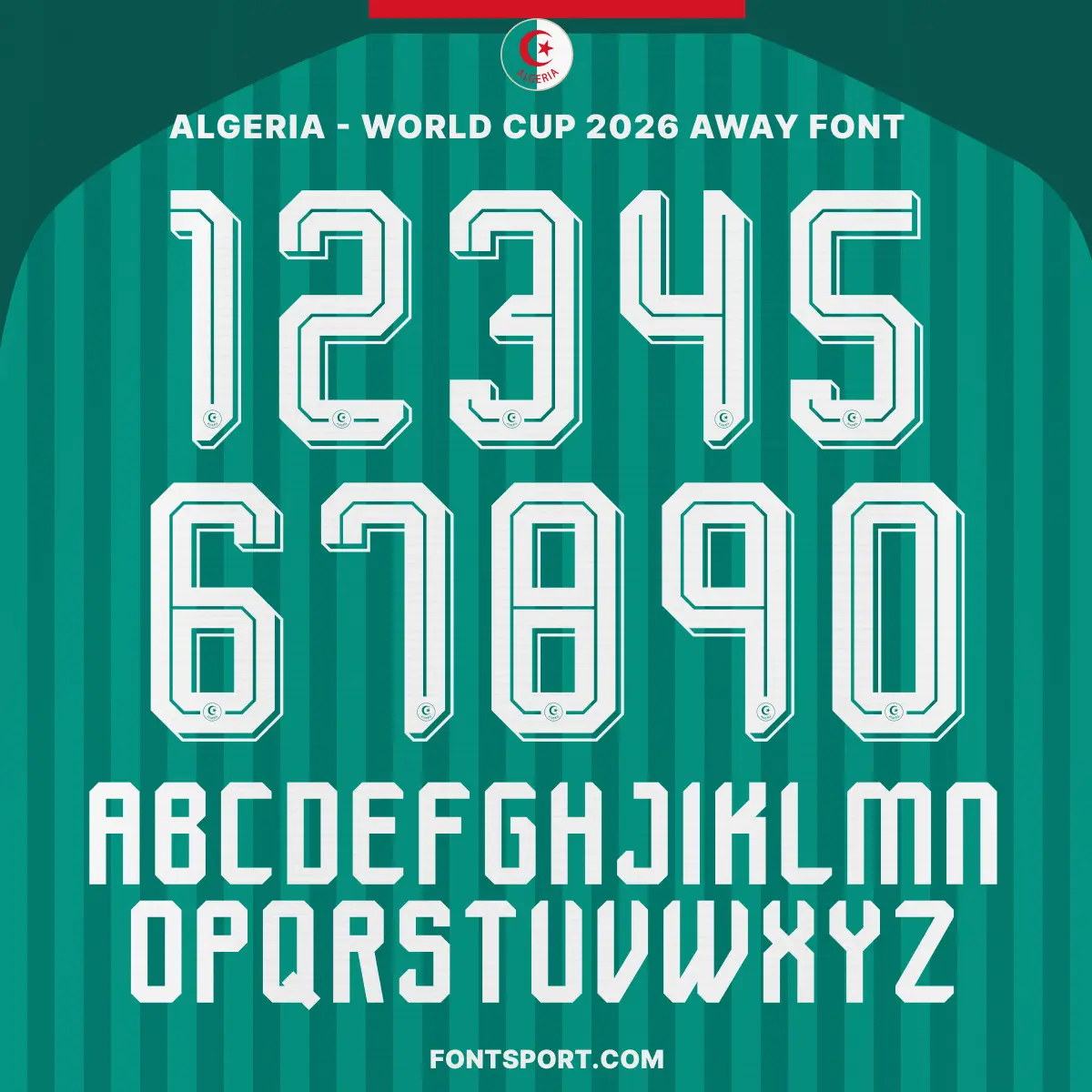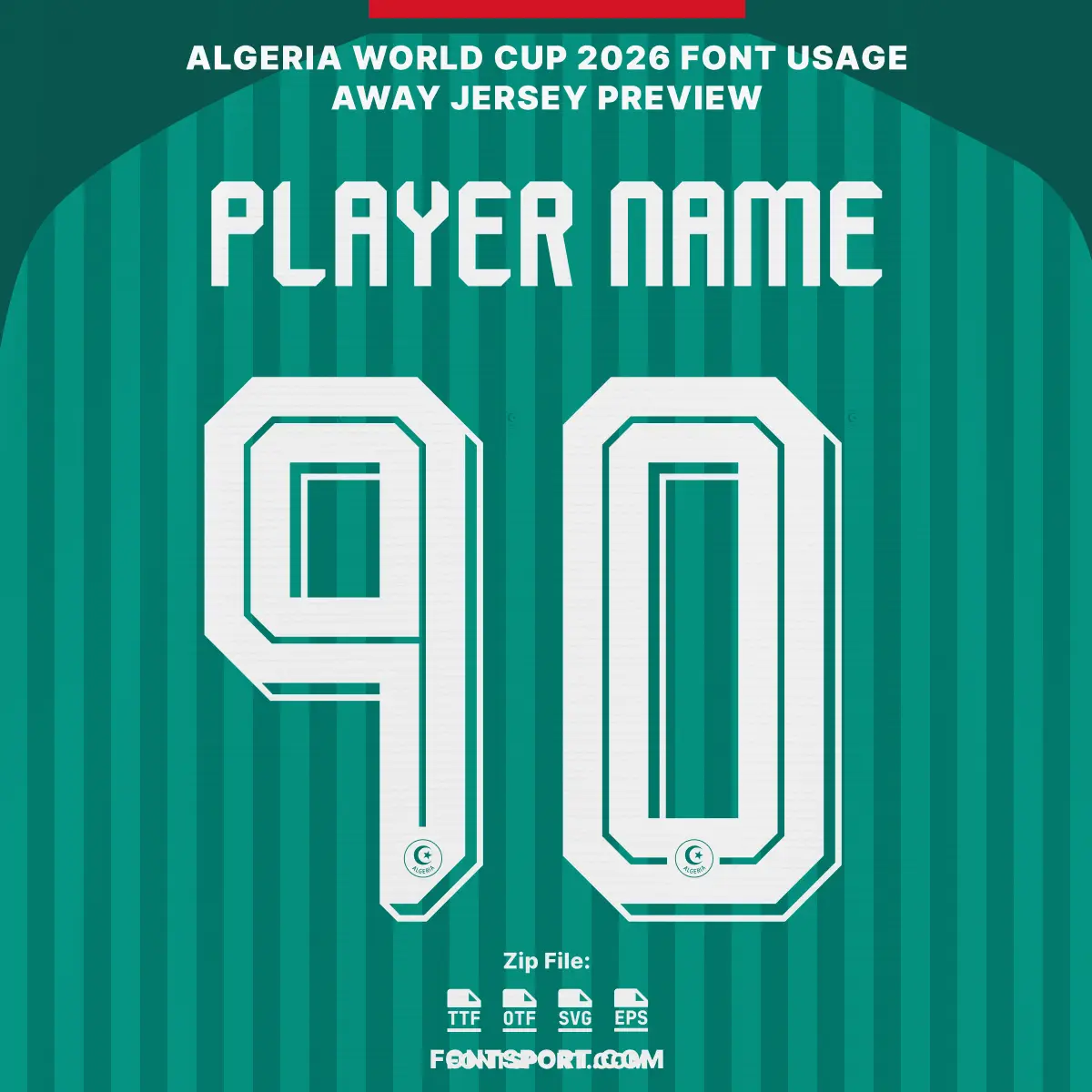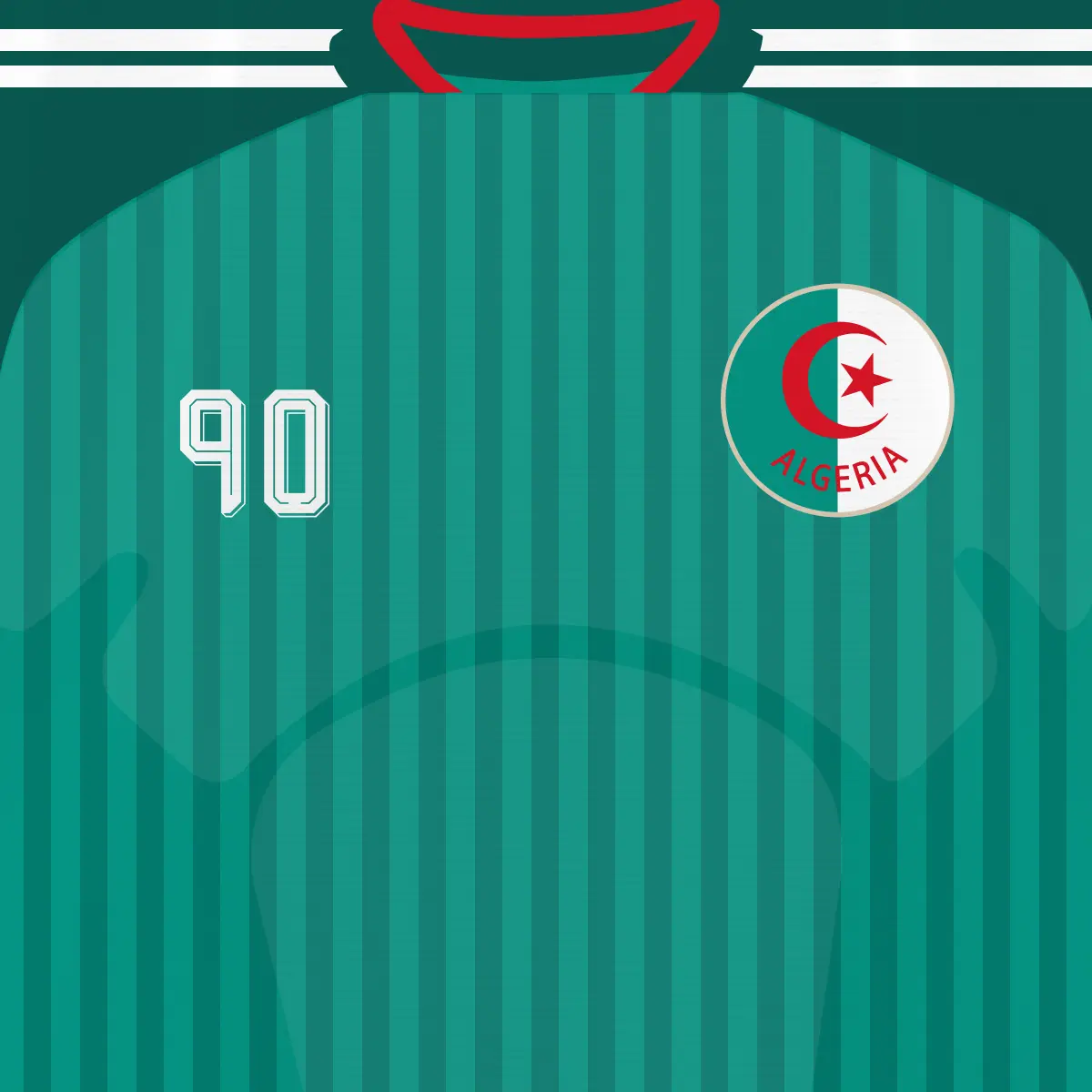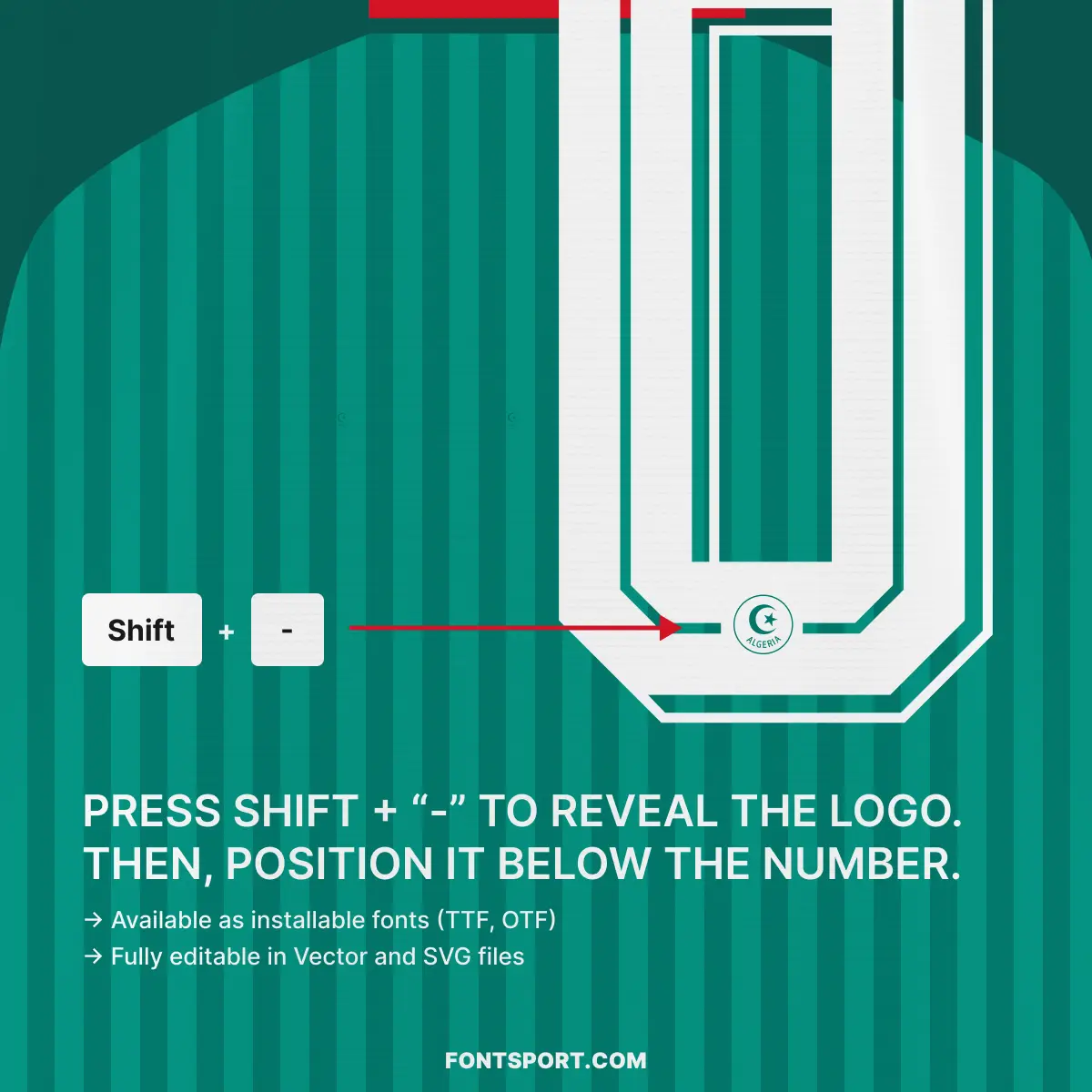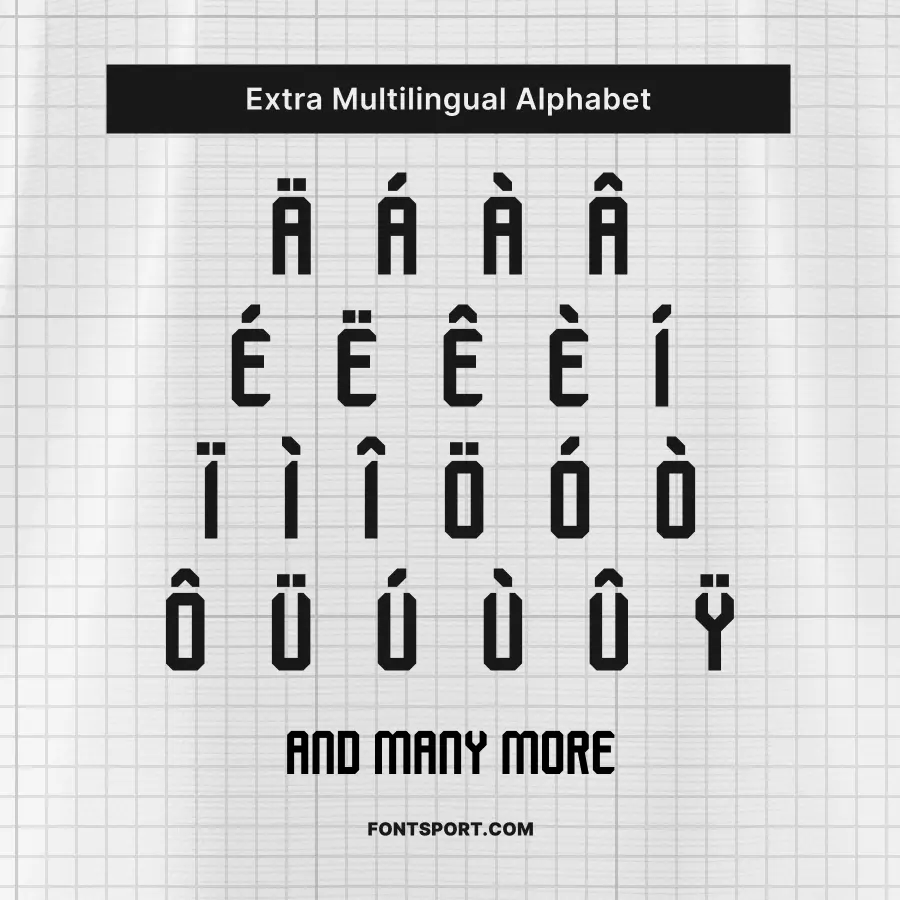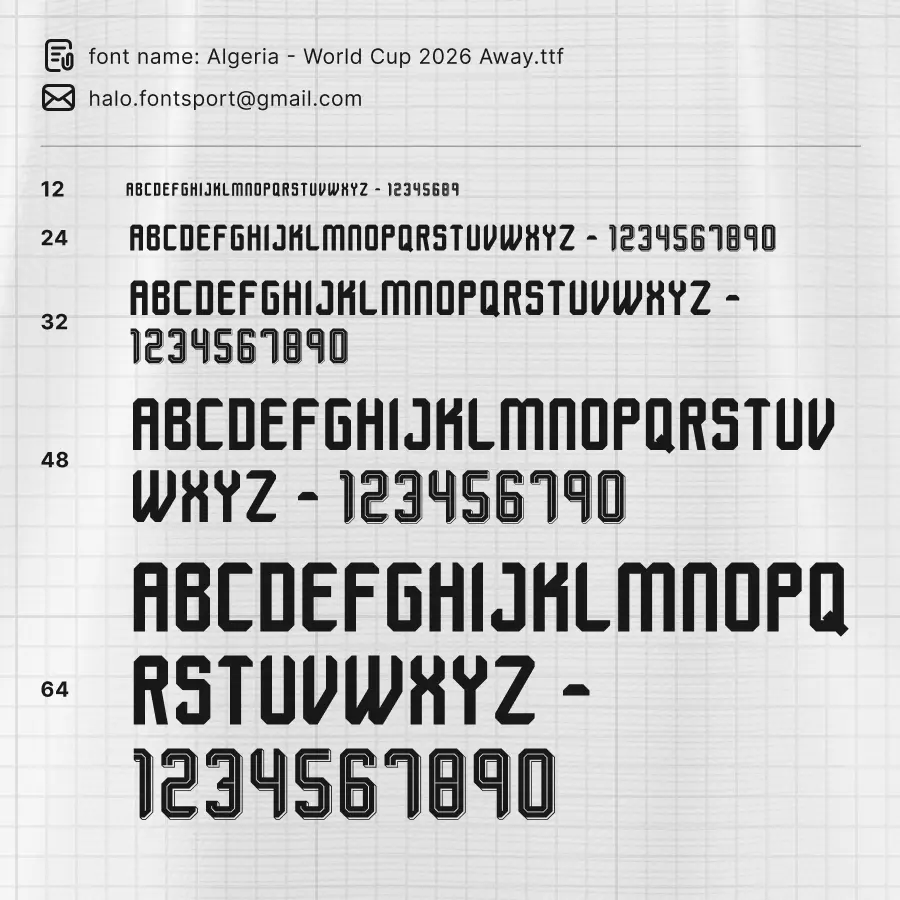
Algeria World Cup Away 2026 Font Kit – Football Typeface
The Algeria World Cup Away 2026 Font Kit brings the soul of the Sahara and the resilience of “Les Fennecs” directly to your creative projects. This font captures the pride of a nation returning to the global stage after a 12-year absence, offering a bold and modern look that perfectly complements the team’s new identity. Whether you are designing professional sports apparel or digital fan content, this kit helps your vision stand out with authentic Algerian flair.
Complete A–Z Character Set: Features the bold, modern uppercase letters that will be worn by stars like Riyad Mahrez and Rayan Aït-Nouri.
Full 0–9 Number Set: Optimized for high visibility, reflecting the “Saharan” inspiration of the 2026 collection.
Extra Multilingual Alphabet: Full support for accented characters (Ä, Á, È, Î, Ë, etc.), perfect for accurately rendering an international roster.
Integrated National Identity: Add an authentic touch to your designs by revealing the Algeria-style logo typography within the kit through a keyboard shortcut.
This bundle is ideal for creating personalized football kits, striking match-day graphics, or unique merchandise that celebrates the “Desert Foxes” and their return to elite international football.
This font kit is built for designers who want to capture the energy of African football’s rising stars:
Cultural Storytelling: The typography is part of a larger collection inspired by Algeria’s unique landscapes, from rocky deserts to lush oases.
Adidas Trefoil Era: This kit reflects the return of the iconic adidas Trefoil logo to the World Cup stage for the first time in 36 years.
Optimized for Performance: An ideal font for jersey customization, team branding, and broadcast-style match graphics.
National Pride: Features a return to the national flag crest, replacing the federation logo for a bold nod to Algerian identity.